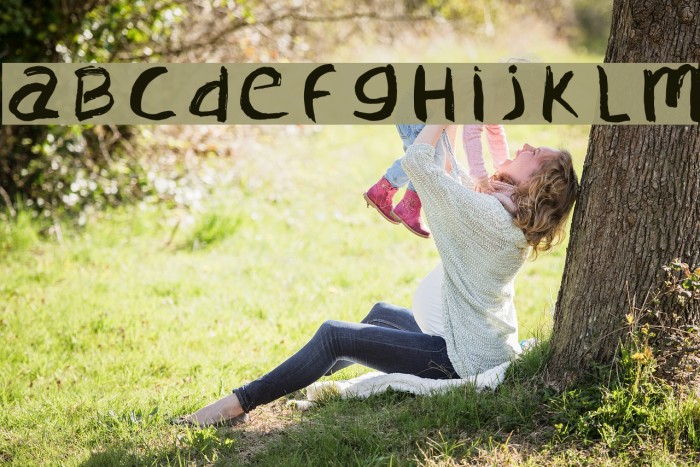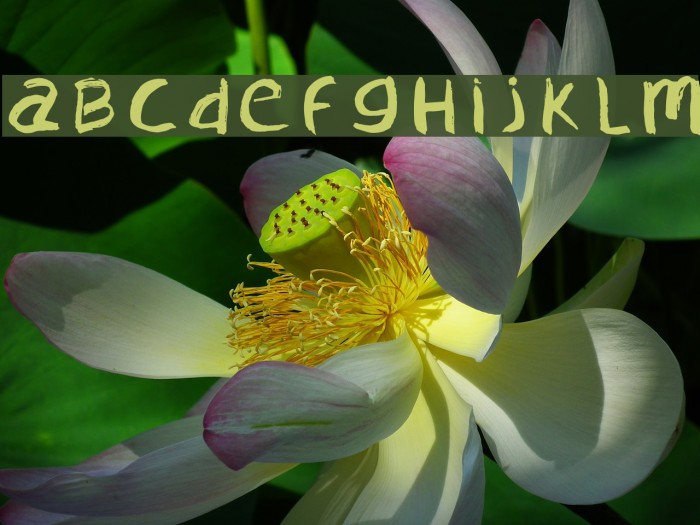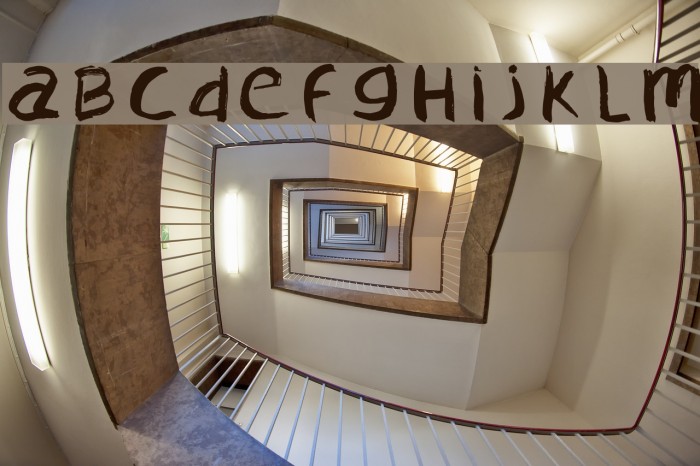
Confused-Regular Font
This font features a playful and dynamic handwritten style with a casual, artistic flair. The letters have an uneven baseline, giving them a lively and spontaneous appearance. The strokes are varied in thickness, adding to the font's expressive nature. The uppercase letters are bold and prominent, while the lowercase letters maintain a consistent flow with slight variations in height and width. This font exudes a sense of creativity and informality, making it suitable for projects that require a personal touch.
A playful, dynamic handwritten font with varied stroke thickness.
- Proposed Projects: Ideal for creative projects such as greeting cards, posters, and artistic branding.
- Overall Style: Casual, Artistic
- Use Case: Headlines, Artistic branding, Greeting cards